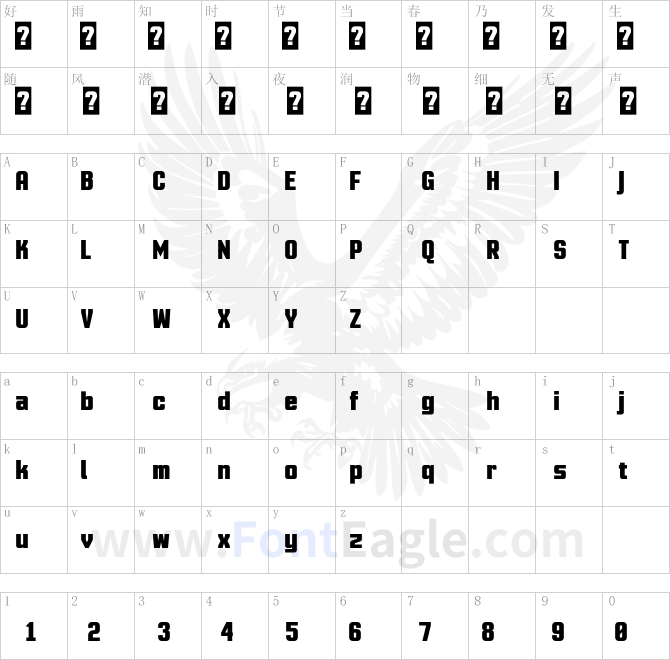
- Font name:Motion Control Neue Lite
- Font Full Name:Motion Control Neue Lite Bold
Motion-Control-Neue-Lite-Bold is a great font, widely used in graphic design, single-page menu design, poster design and other fields, and is deeply loved by designers.Motion-Control-Neue-Lite-Bold download.